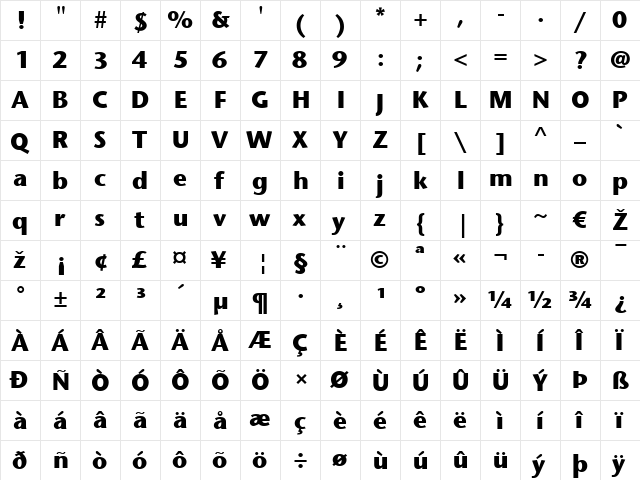
StoneSans LT Bold Regular
Design Context for StoneSans LT Bold Typeface
StoneSans LT Bold offers clean, dependable letterforms without strong stylistic allegiance, making it a practical choice for designers who need flexibility. The heavy weight commands attention and anchors typographic hierarchies.